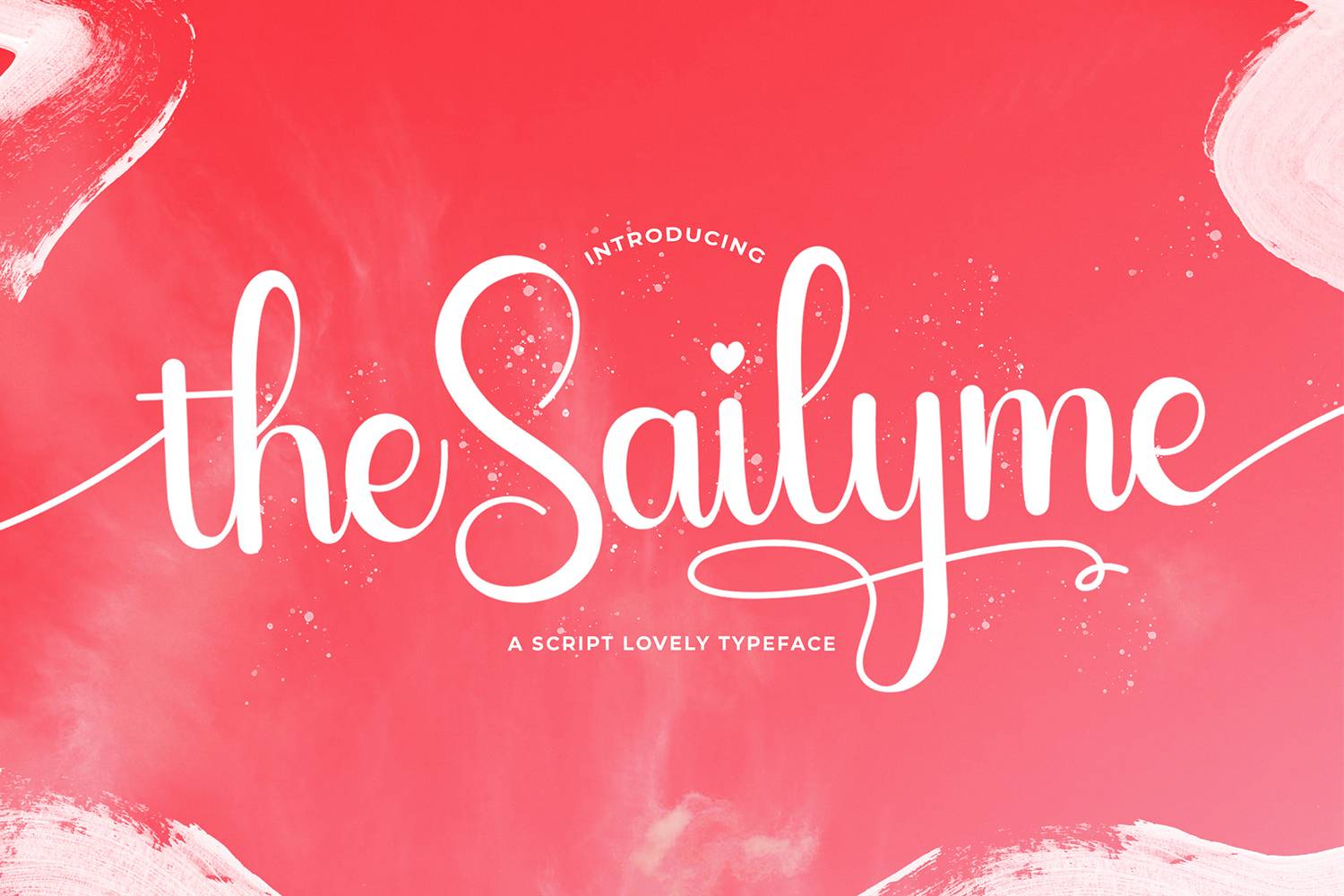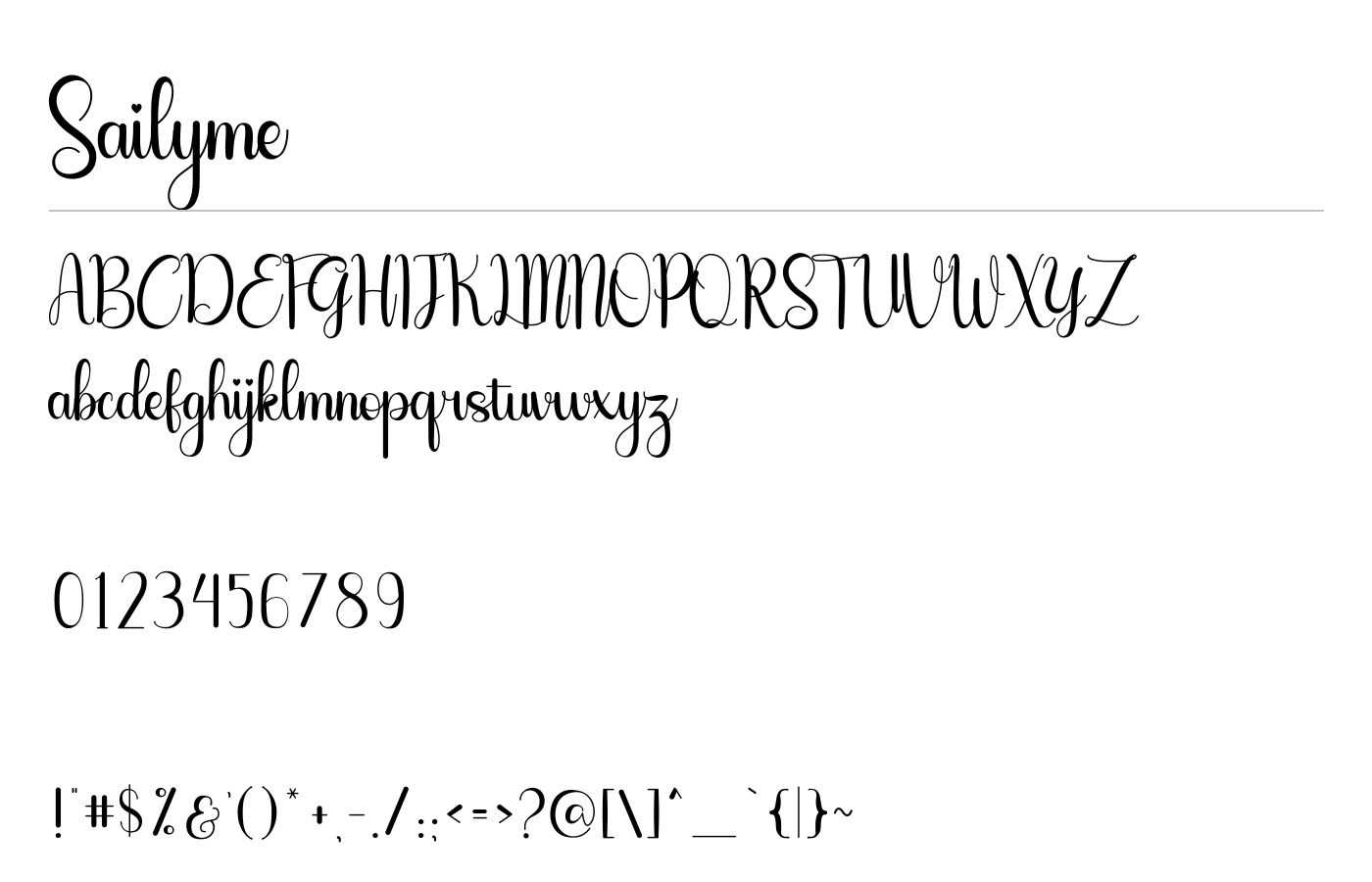
Sailyme is a delicate script font featuring tall, slender letterforms with playful, whimsical swashes and curls that give it a hand-drawn, elegant charm. Its thin strokes and high contrast make it ideal for feminine designs, invitations, and branding that seeks a romantic, graceful feel while maintaining readability. This font works beautifully for decorative headlines and creative projects that want a touch of sophistication and personality.
Sailyme Font